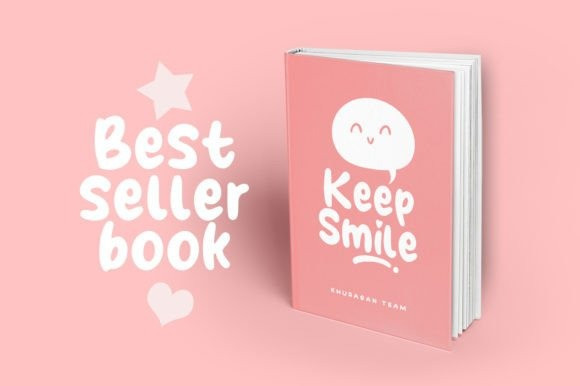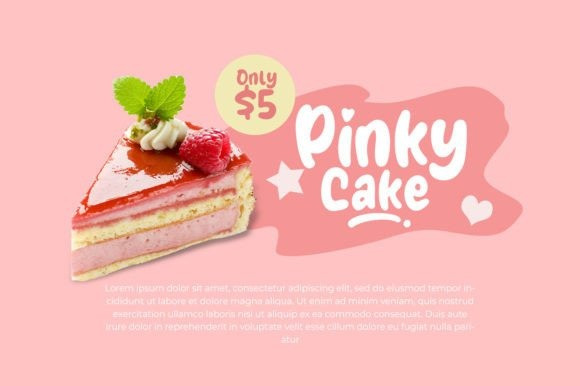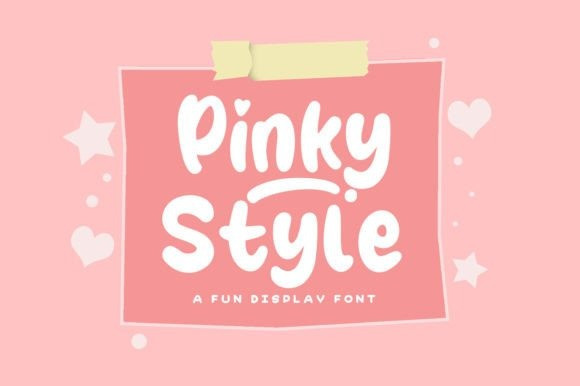
Pinky Style Font
Pinky Style Font, a playful and vibrant display typeface that exudes personality and charm. With its whimsical letterforms and bubbly curves, this font brings a touch of fun to any design. Perfect for headlines, logos, and creative projects that need a pop of character, Pinky Style Font captures the essence of joy and creativity, making your text stand out with its unique and energetic style.